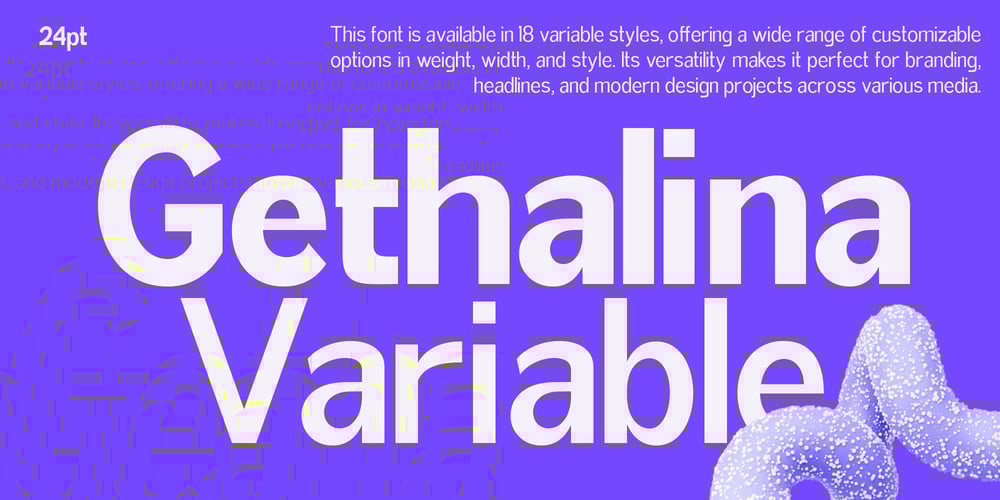
Gethalina Variable Font Family was designed by Ikhsan Maulana and published by IM Studio. Gethalina Variable contains 18 styles and family package options. Gethalina Variable is a modern sans serif with a geometric twist. It is available in 18 weights, 9 upright weights, and a matching italic weight. Designed with advanced open type features in mind. Each weight includes extended language support (+Cyrillic) (+Latin) (+Greek), fractions, table figures, arrows, ligatures, and more. It is perfect for graphic design and any display use. It can be easily used for web, signage, corporate, and editorial design.